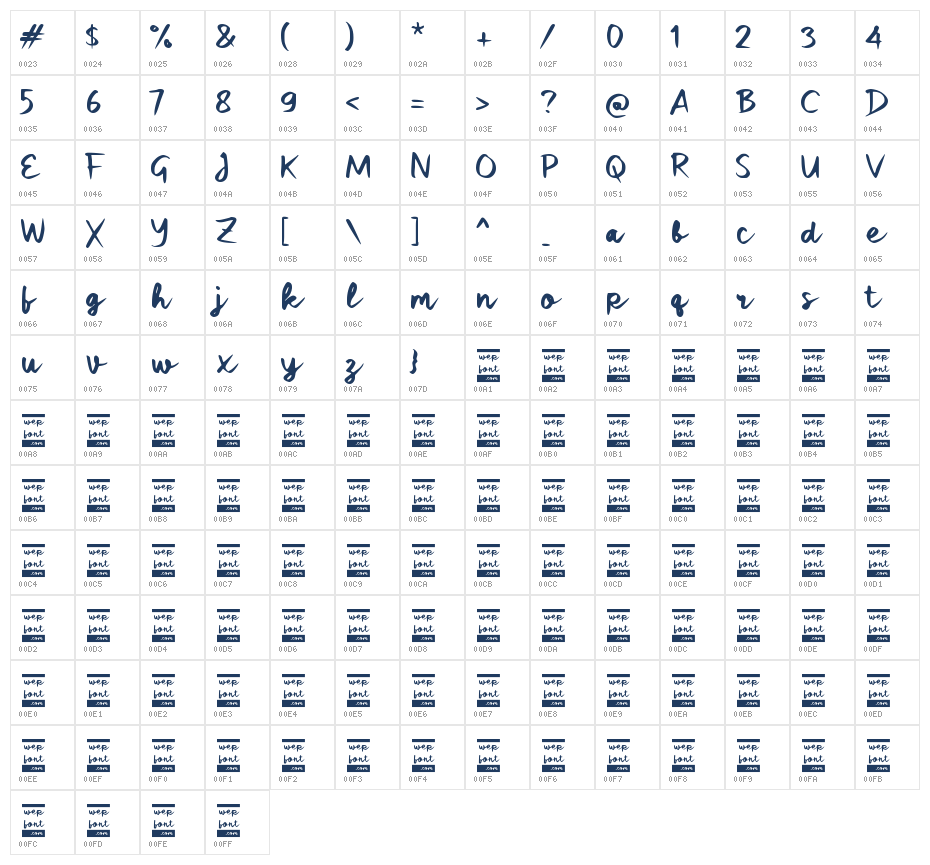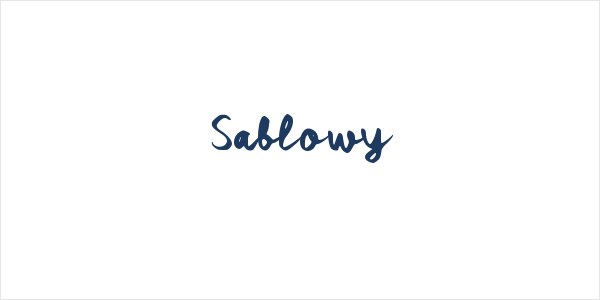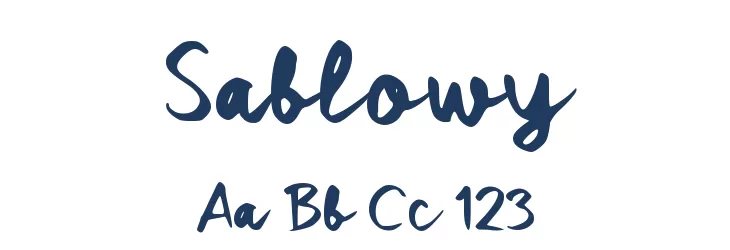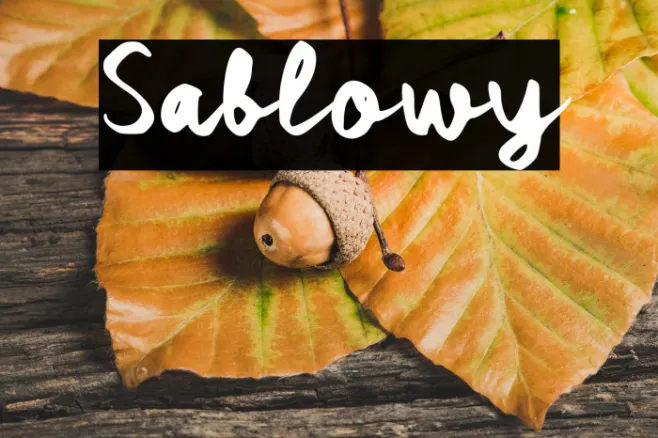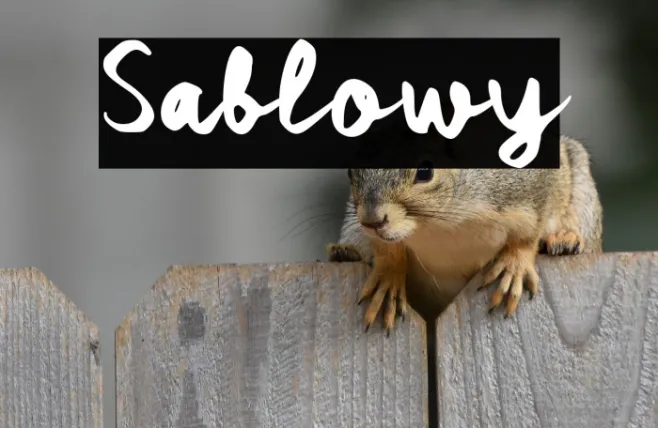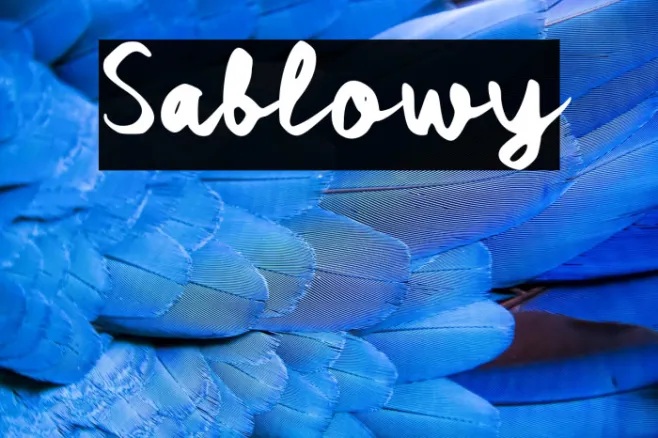
Sablowy Font
Sablowy Description
A casual, handwritten style font with a playful and informal appearance, featuring slightly irregular strokes and a friendly vibe.
| Overall Style | Casual, Friendly, Handwritten |